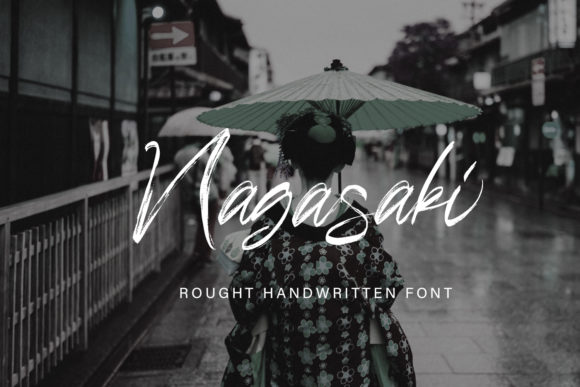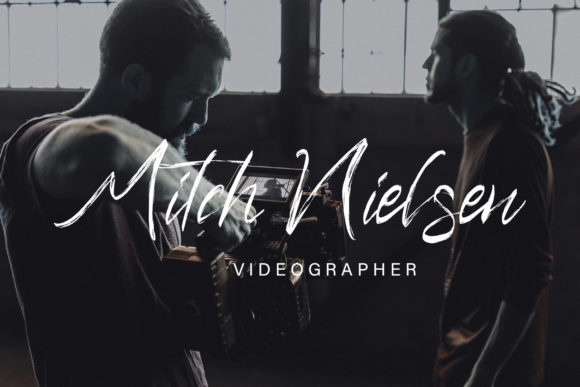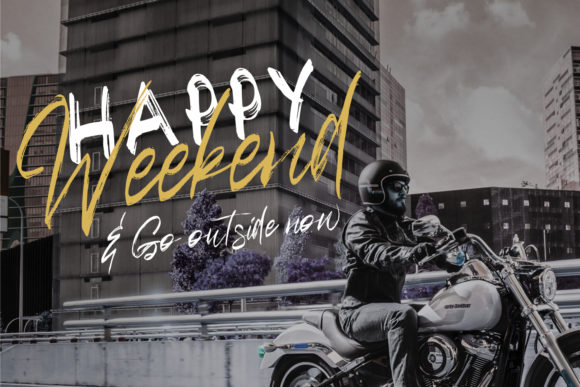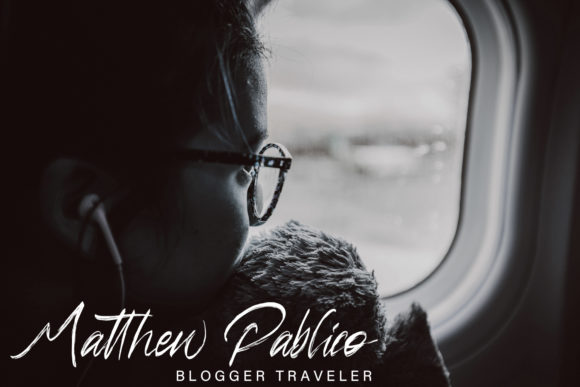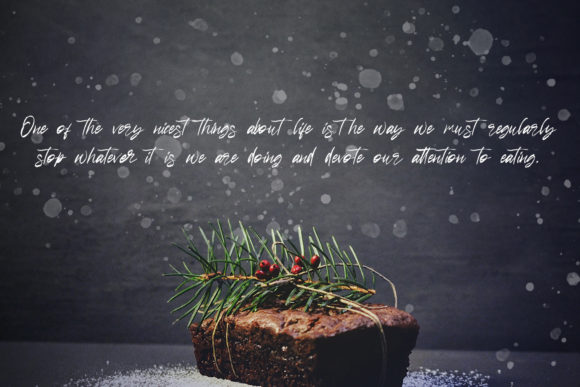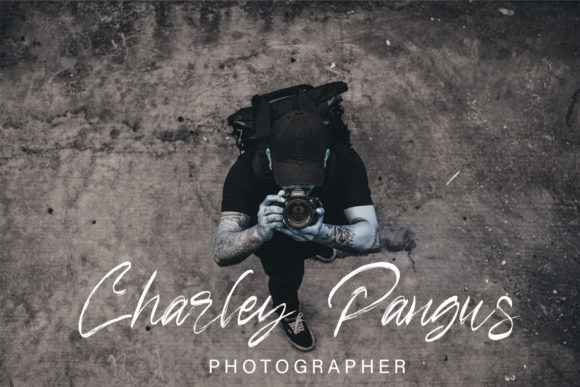
Nagasaki Font
About Nagasaki Font
Nagasaki deatures distinctive handwritten characters, perfect for branding projects, logos, wedding designs, media posts, advertisements, product packaging, product designs, labels, photography, watermarks, invitations, stationery, and any project in need of a handwritten touch.